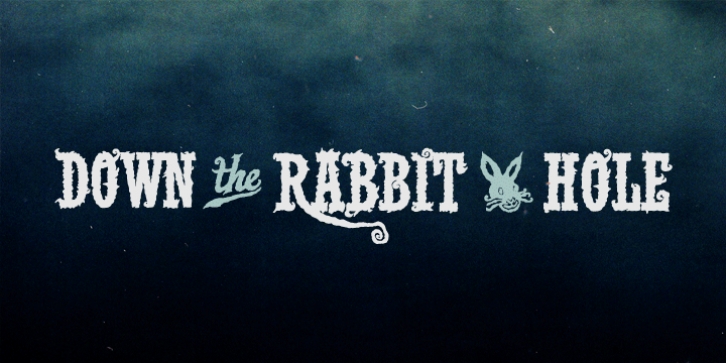
Publisher: Typocalypse
Lith is a hand-drawn headline typeface inspired by Alice In Wonderland and the Brothers Grimm fairy tales. “Flawed” comes with a lot of alternate letters, ligatures, beginnings.
“Mad” contains icons with catch-words, card- & chess symbols and other gimmicks.